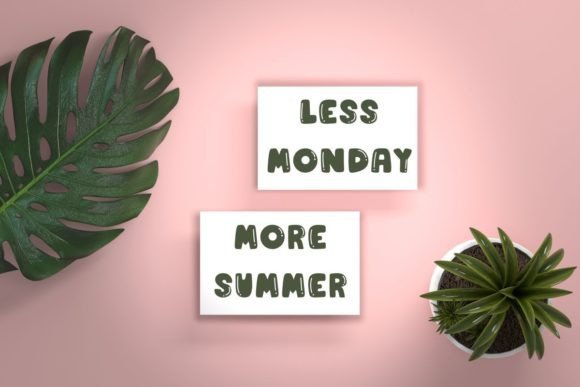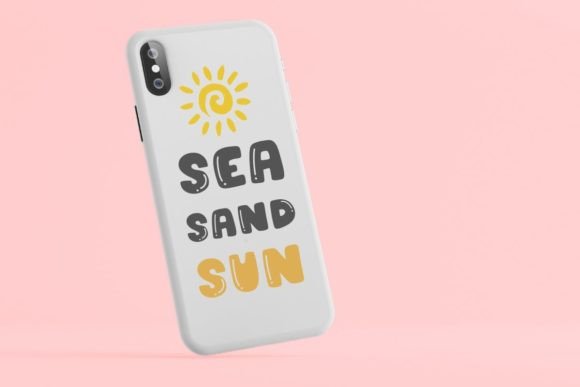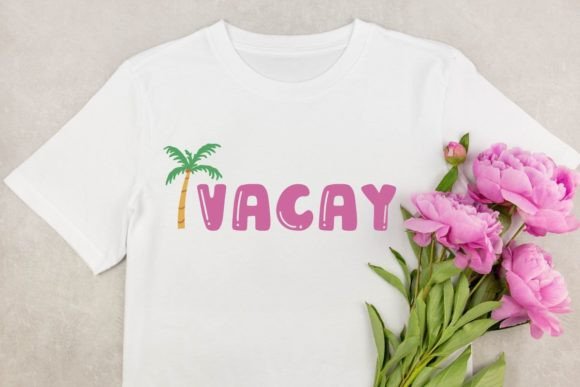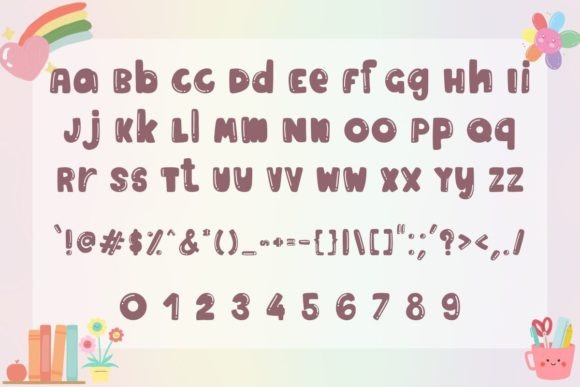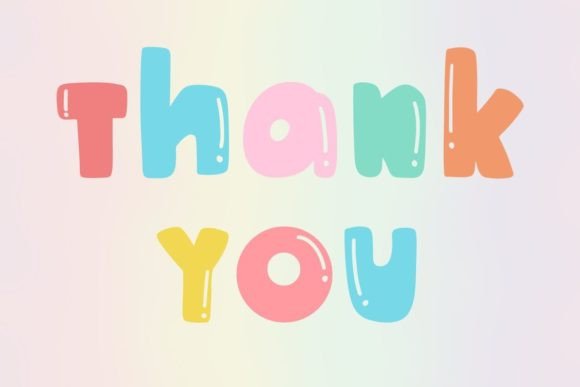
Introducing Enjoy Font: The Fun Display Font for Creative Projects
Are you a designer, crafter, or educator looking for a font that can add a touch of fun and playfulness to your projects? Look no further than Enjoy Font! This versatile display font is perfect for a wide range of applications, from quotes and teaching materials to greeting cards, headlines, stickers, and more.
What Makes Enjoy Font So Special?
Enjoy Font is a unique and creative font that is designed to bring a smile to your face. Its fun and playful style makes it perfect for projects that require a lighthearted and approachable tone. Whether you’re creating a greeting card, a poster, or a social media graphic, Enjoy Font is sure to add a touch of personality and whimsy to your design.
Endless Possibilities with Enjoy Font
One of the best things about Enjoy Font is its versatility. It can be used for a wide range of projects, including:
- Quotes and sayings: Add a touch of fun and personality to your inspirational quotes and sayings with Enjoy Font.
- Teaching materials: Make learning fun with Enjoy Font’s playful style, perfect for educational materials, worksheets, and activity sheets.
- Greeting cards: Create one-of-a-kind greeting cards for birthdays, holidays, and special occasions with Enjoy Font.
- Headlines and titles: Add a pop of personality to your headlines and titles with Enjoy Font’s fun and playful style.
- Stickers and labels: Use Enjoy Font to create fun and colorful stickers and labels for your projects.
Why Choose Enjoy Font?
There are many reasons why Enjoy Font is a great choice for your design projects. Here are just a few:
- Unique and creative style: Enjoy Font has a one-of-a-kind style that will set your projects apart from the rest.
- Highly versatile: Enjoy Font can be used for a wide range of projects, from fun and playful to educational and inspirational.
- Easy to read: Despite its playful style, Enjoy Font is easy to read and understand, making it perfect for quotes, sayings, and educational materials.
- Adds personality to your designs: Enjoy Font is the perfect way to add a touch of personality and whimsy to your designs.
Tips for Using Enjoy Font
Here are a few tips for getting the most out of Enjoy Font:
- Experiment with different colors: Enjoy Font looks great in a variety of colors, so don’t be afraid to experiment and find the perfect hue for your project.
- Use it in combination with other fonts: Enjoy Font pairs well with a variety of other fonts, so try combining it with other fonts to create a unique and interesting look.
- Make it bold: Enjoy Font looks great in bold, so don’t be afraid to make it stand out with a larger size or bold font weight.
Enjoy Font is a fun and versatile display font that is perfect for a wide range of creative projects. Its unique and creative style makes it a great choice for designers, crafters, and educators looking to add a touch of personality and whimsy to their designs. With its endless possibilities and ease of use, Enjoy Font is sure to become a favorite in your font collection.